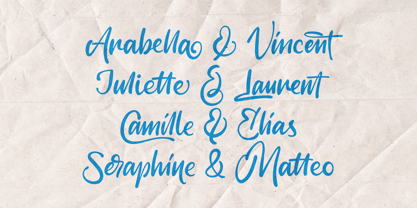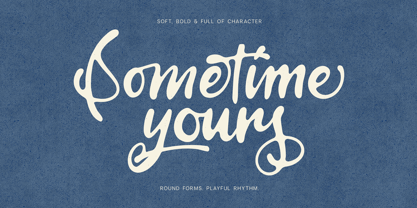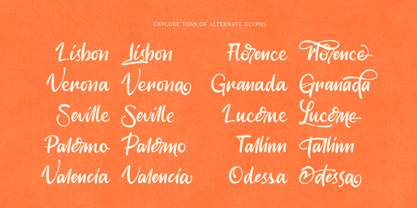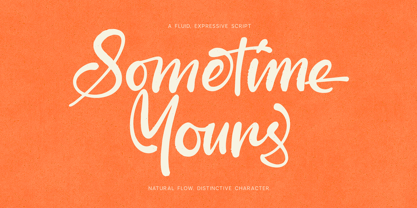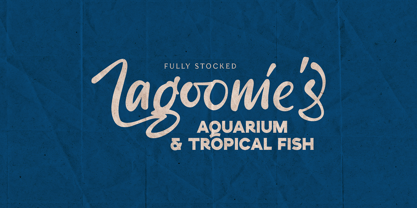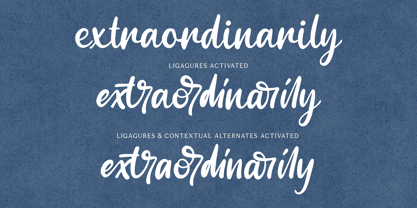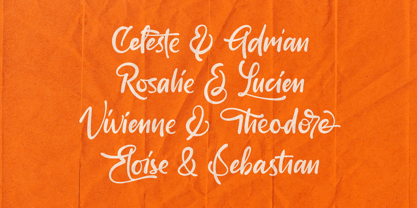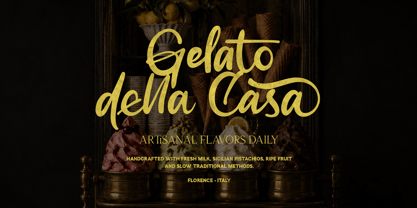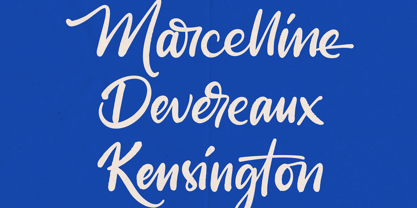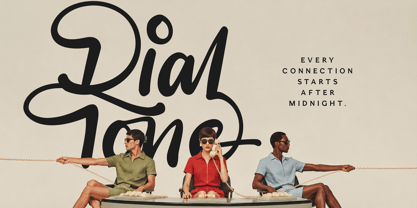
Meet Sometime Yours, an expressive handwritten script font trio created for designs that deserve personality, movement, and unmistakable charm. Combining natural brush rhythm with playful details, this versatile collection gives you three distinct interpretations of the same lively hand-drawn style.
Choose Regular for an organic and confidently handwritten look, Clean for smoother and more polished lettering, or Blobfor a bolder, rounder, and delightfully unconventional finish. Mix the styles across a project or let each one establish its own visual mood.
Every style is loaded with ligatures and alternate glyphs, helping repeated letters and common combinations appear more natural and varied. Extensive multilingual support makes Sometime Yours suitable for international branding, while its expressive letterforms work beautifully across logos, packaging, posters, social media graphics, editorial layouts, invitations, book covers, product labels, and creative advertising.
Sometime Yours is playful without feeling childish, stylish without becoming overly polished, and expressive enough to turn even a few simple words into a memorable visual statement.
Sometime Yours Regular
Sometime Yours Clean
Sometime Yours Blob
Ligatures in all three styles
Alternate letterforms
Multilingual support
Uppercase and lowercase letters
Numbers, punctuation, and symbols